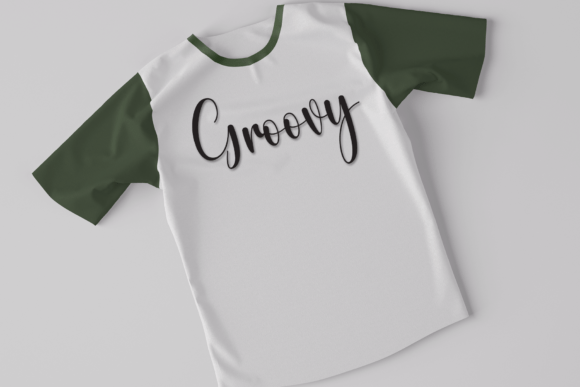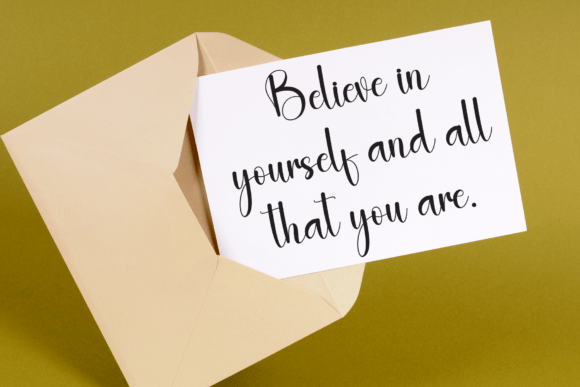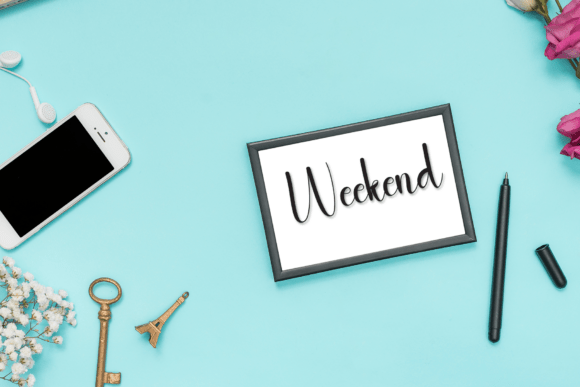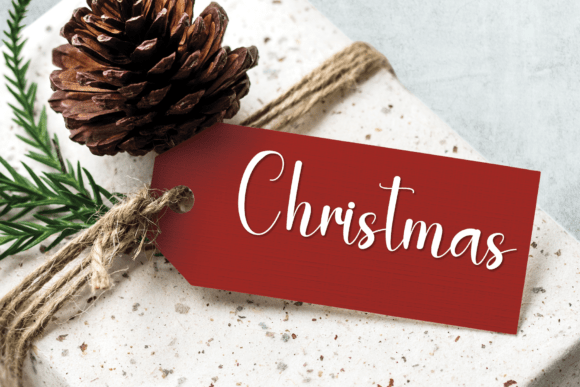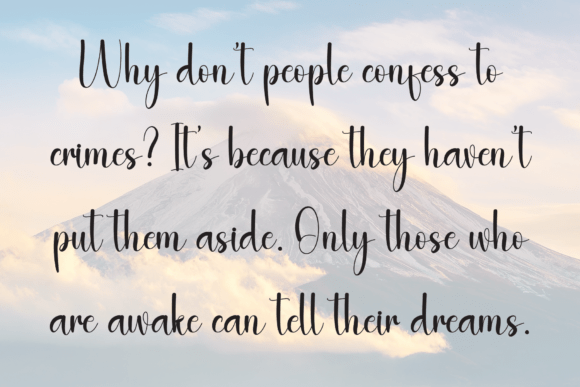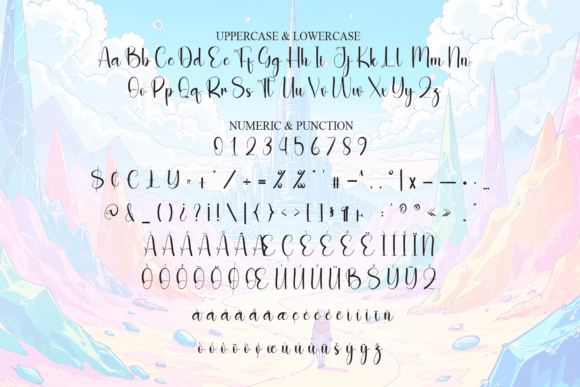
Introduction to Fantasy Font Font
Fonts play a crucial role in design, and the Fantasy Font font is a typeface that brings both character and versatility to any project. Whether you’re working on a branding project, a website, or a print design, the Fantasy Font font offers a unique style that can elevate your work.
Soak in the charm and grace of our meticulously crafted display font, radiating elegance, refinement, and a soft-spoken charm.
This font is the ideal touch for enhancing the beauty of soulful wedding invitations, sentimental cards, or any design that calls for a dash of joy Exuding a friendly radiance, this font can infuse your creations with an authentic sense of happiness and coziness.
Key Features of Fantasy Font Font
Why Choose Fantasy Font Font?
The Fantasy Font font is more than just a typeface – it’s a design tool that helps you communicate your message with style and clarity. Its unique character set and versatile design make it suitable for a wide range of applications, from elegant invitations to bold headlines.
With its carefully crafted letterforms and balanced proportions, the Fantasy Font font ensures readability and visual appeal across all mediums.
What makes Fantasy Font font special?
The Fantasy Font font stands out with its unique design, exceptional readability, and versatility across various design applications.